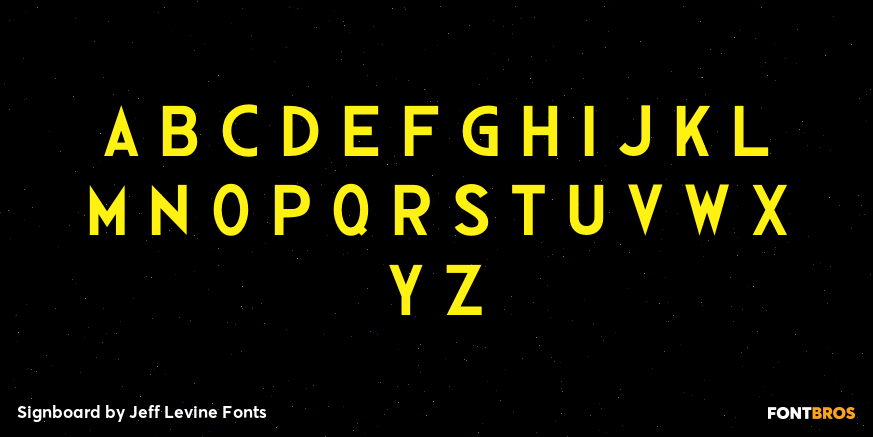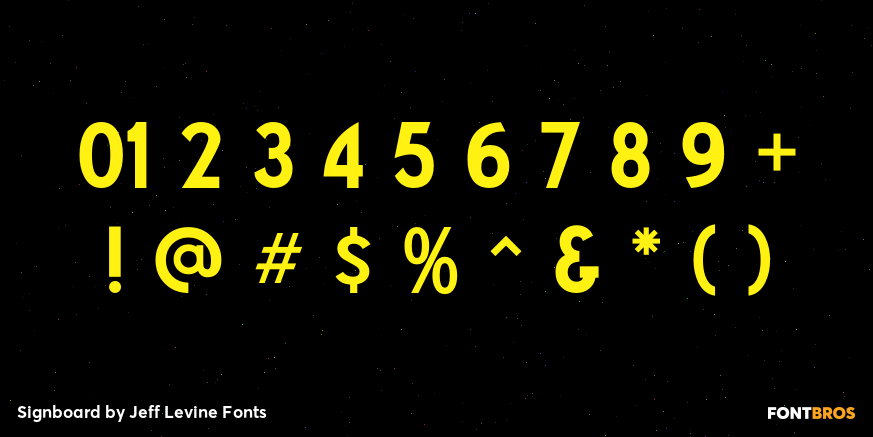
Signboard
Signboard JNL is based on die-cut cardboard display lettering once made by the Duro Decal Company (now Duro Art Industries) of Chicago, Illinois. Available in various sizes, these letters and numbers could be affixed to a number of different surfaces to make affordable signs, displays and show cards.